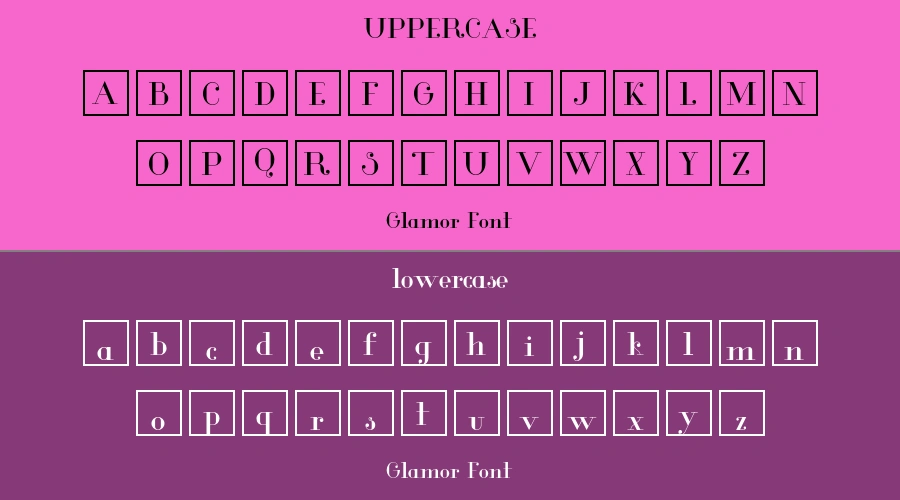
About Glamor Font
Glamor Font represents a sophisticated approach to type design, balancing original character with clarity. Perfect for corporate reports, this font family showcases impressive craftsmanship and visual appeal throughout its character set. Designers appreciate its versatility and reliability.
Designers will appreciate nuanced touches including clean corners and contextual alternates, adding sophistication to any project. These features become apparent in specification sheets, where scanning accuracy matters most. The careful treatment of shoulder shape and lifestyle alignment ensures optimal performance.